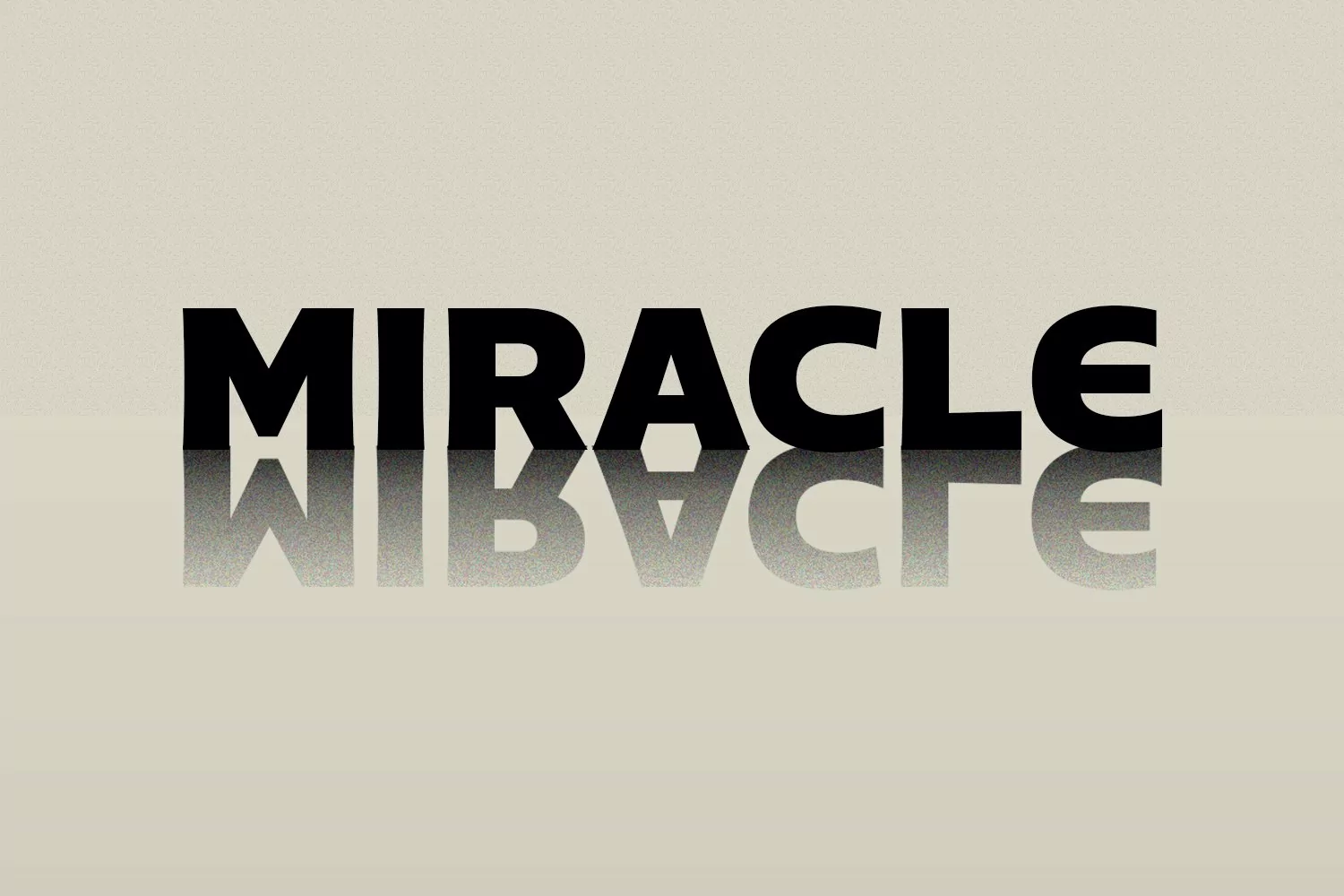
Ergonic Display Sans
Ergonic is a Modern display sans serif font. With Bold stroke, fun character with a bit of ligatures and alternates. To give you an extra creative work. Ergonic font support multilingual more than 100+ language. This font is good for logo design, Social media, Movie Titles, Books Titles, a short text even a long text letter and good for your secondary text font with sans or serif. Make a stunning work with Ergonic font.